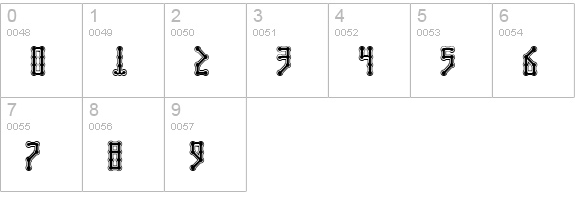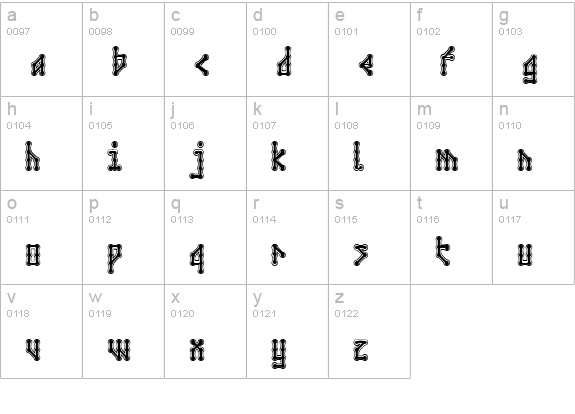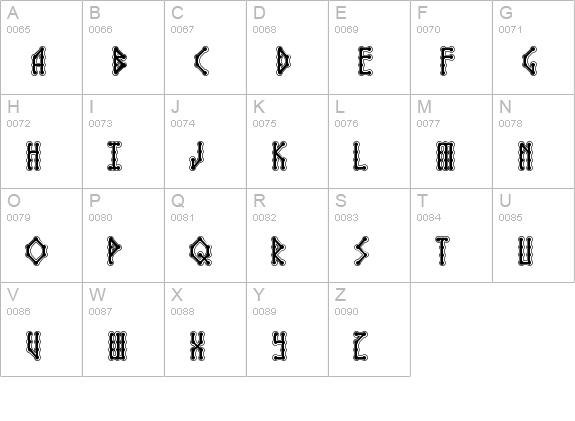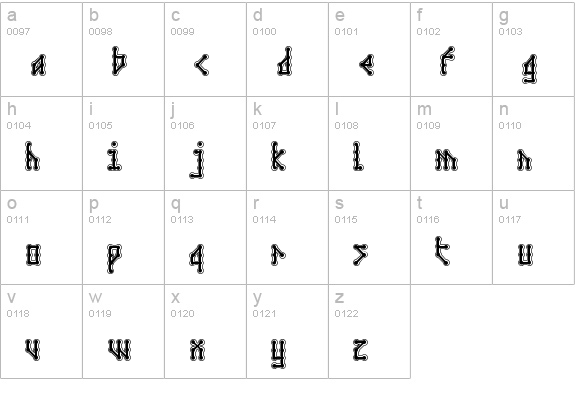
Microbe Collegiate AOE Font Details
Microbe Collegiate AOE font is a dynamic and energetic typeface that exudes a sense of youthful enthusiasm and academic charm. Its bold and modern design makes it perfect for a wide range of projects, from posters and banners to websites and social media graphics. With its unique combination of sharp edges and flowing curves, Microbe Collegiate AOE font is sure to make a statement and capture attention. What sets Microbe Collegiate AOE font apart is that it is available for free download at FontsMarket.com. This means that you can easily access and use this versatile font in your projects without any cost. Whether you are a student looking to add a touch of creativity to your school assignments or a designer seeking a fresh and eye-catching font for your latest project, Microbe Collegiate AOE font is a fantastic choice that won't break the bank. Don't miss out on the opportunity to enhance your designs with the bold and stylish Microbe Collegiate AOE font. Download it for free today at FontsMarket.com and let your creativity soar.